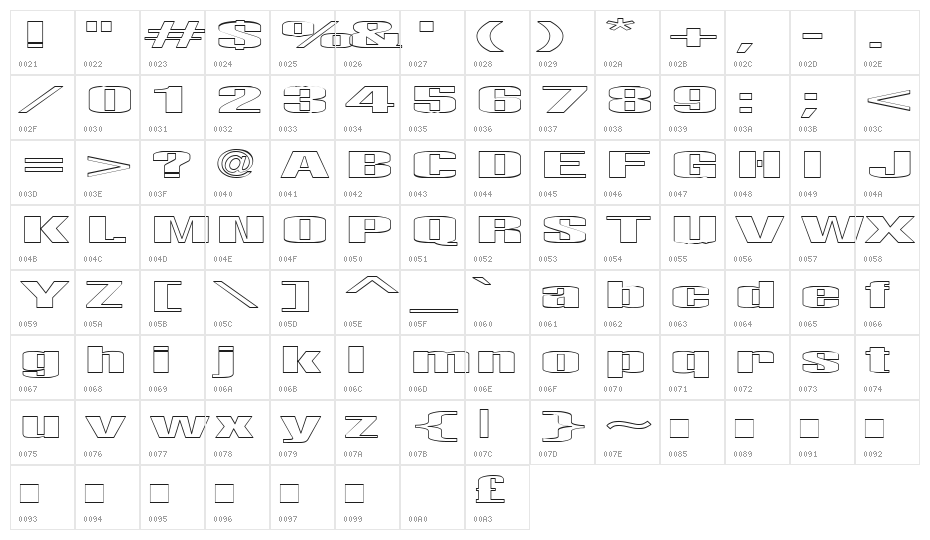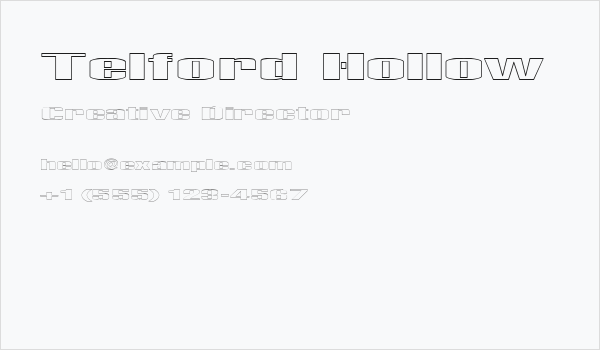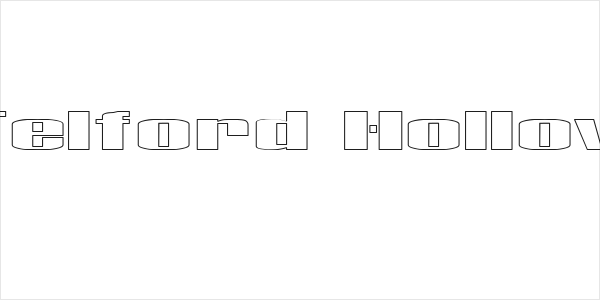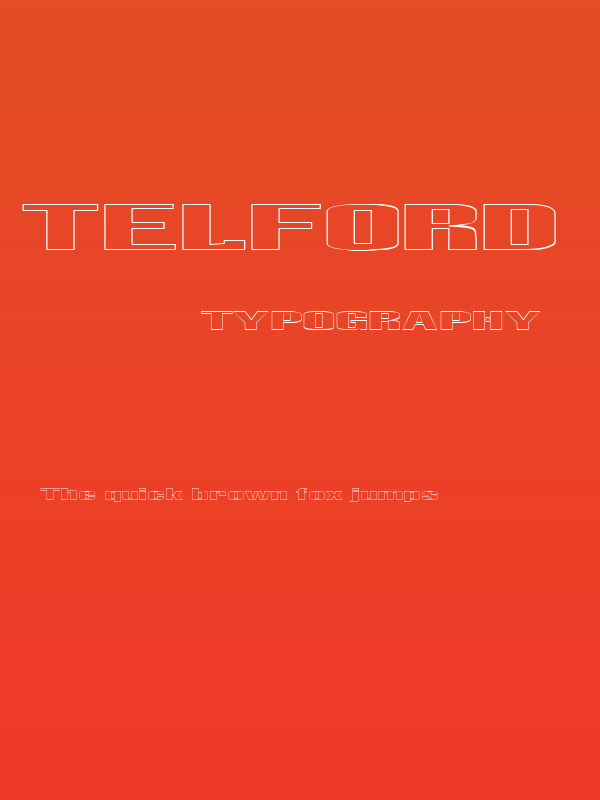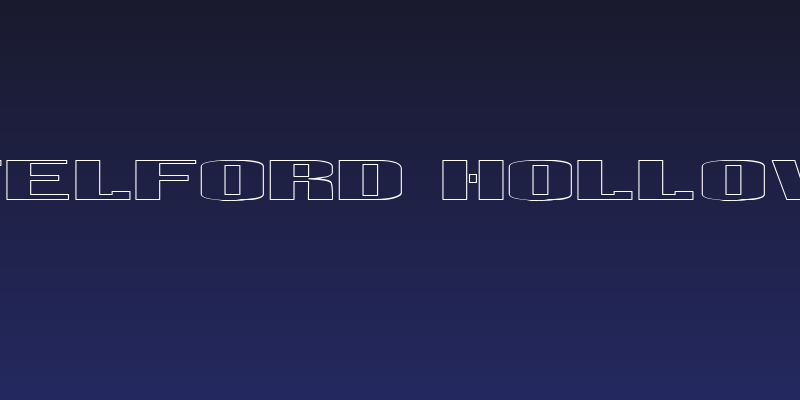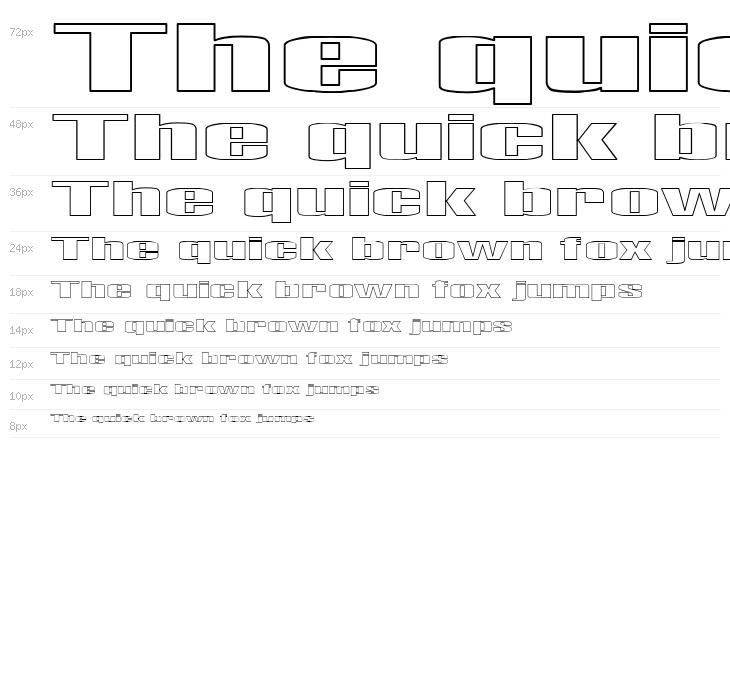
Telford Hollow Font
Telford Hollow Description
This font features a hollow, outlined design that gives it a modern and industrial feel. The characters are bold and geometric, with a consistent stroke width that creates a uniform appearance. The uppercase and lowercase letters maintain a similar style, providing a cohesive look across different text cases. Numbers and special characters are designed with the same hollow effect, ensuring versatility in various applications. The font's structure is clean and precise, making it suitable for projects that require a contemporary and edgy aesthetic.